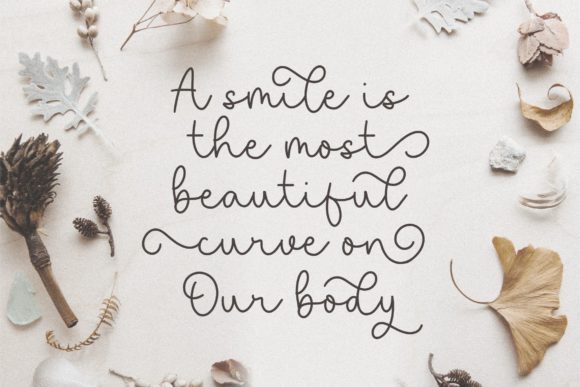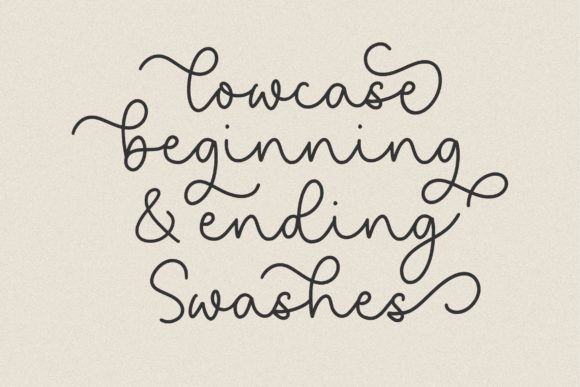
Saylora Font
Saylora is a beautiful light handwritten font with a unique feel and a stunning impact. It will add a luxury spark to any design project that you wish to create! This font is PUA encoded which means you can access all of the amazing glyphs and ligatures with ease!